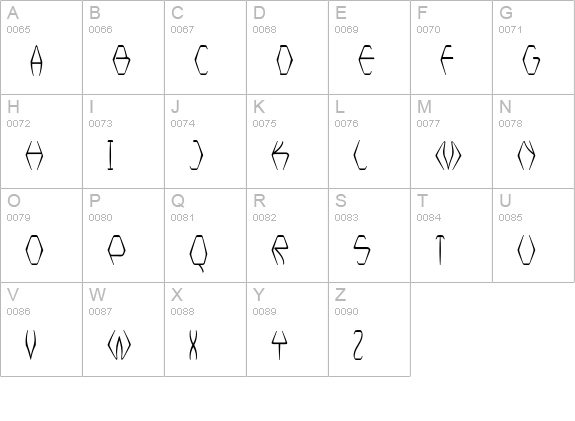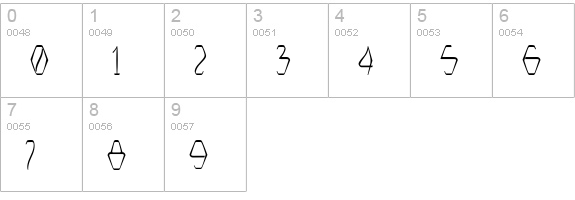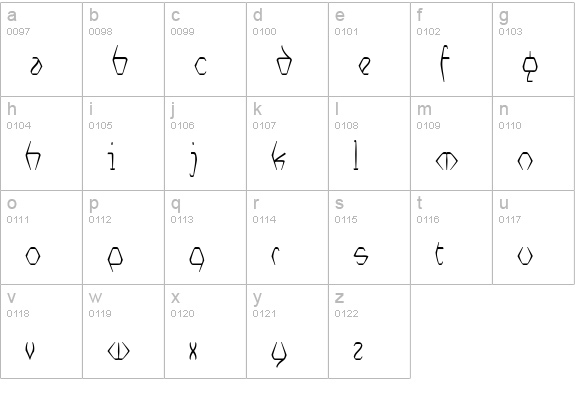
NerdishHex font is a quirky and fun typeface that combines elements of nerd culture with a modern twist. This unique font features hexagonal shapes and geometric patterns, giving it a futuristic and tech-savvy appearance. Perfect for projects that require a touch of geeky charm, NerdishHex font is sure to make your text stand out. What's even better is that NerdishHex font is completely free to download at FontsMarket.com. Whether you're working on a website, a poster, or a logo, this font will add a playful and imaginative touch to your designs. Embrace your inner nerd and give your projects a fresh and unconventional look with NerdishHex font. Download it today and let your creativity run wild!